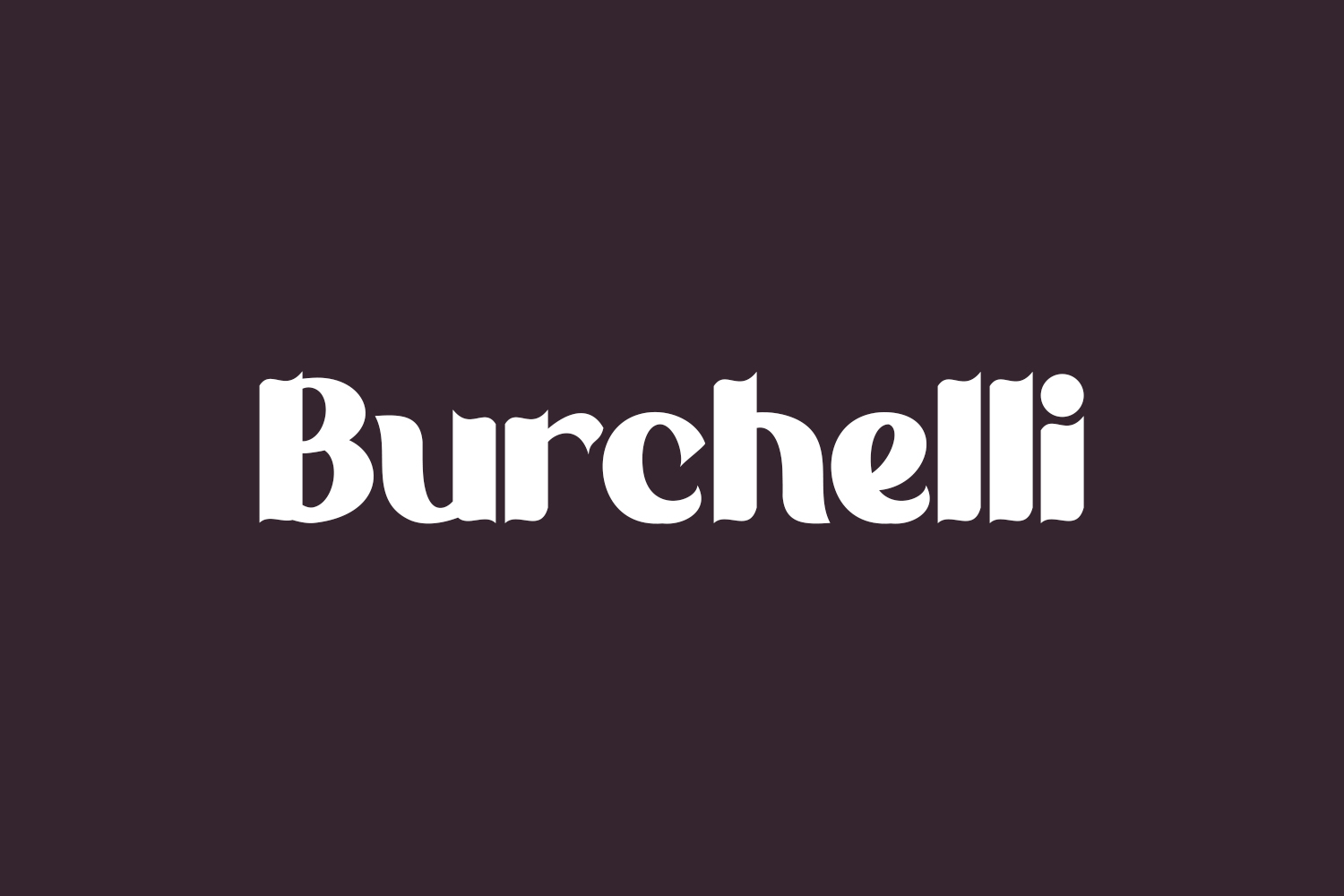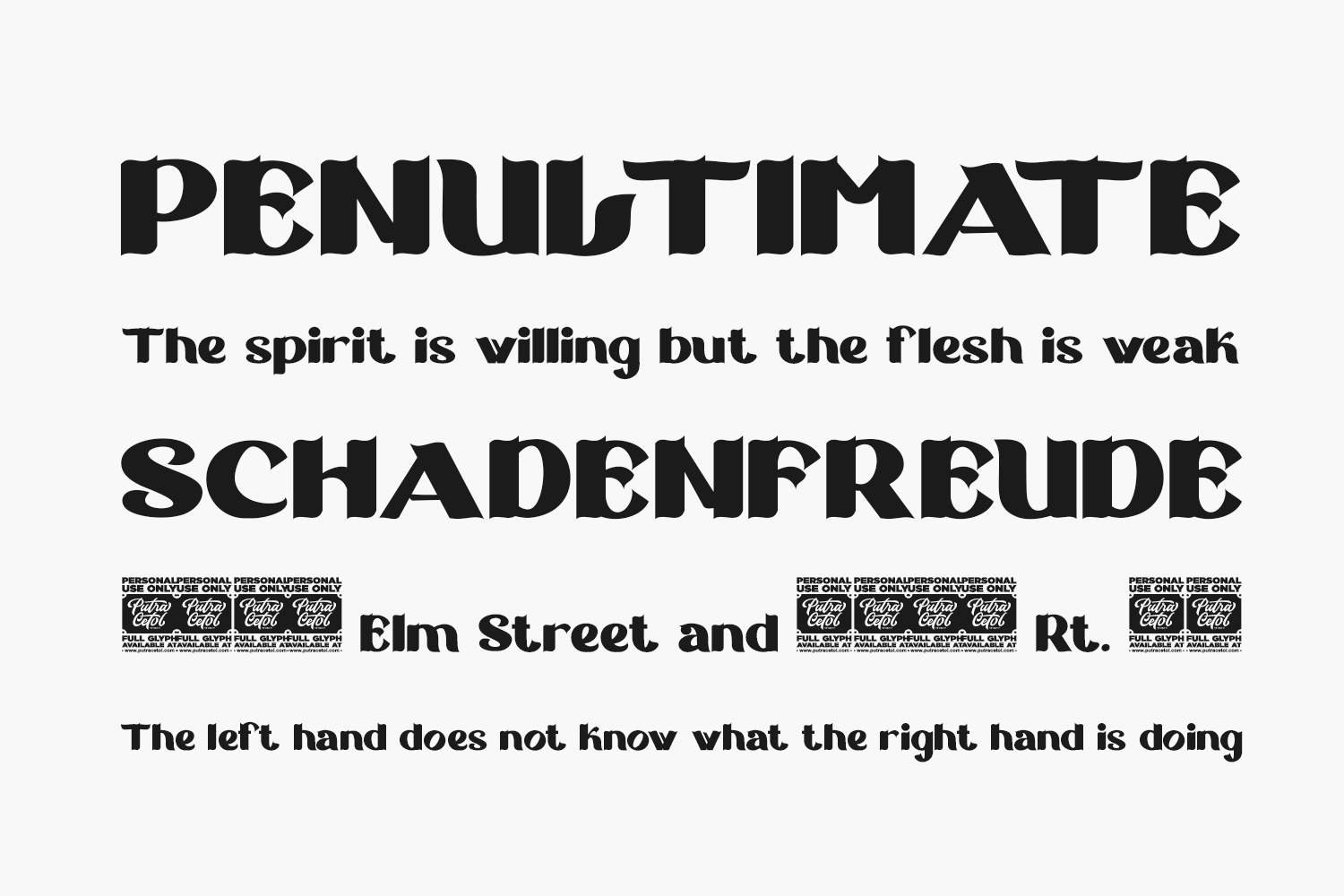
Burchelli Free Font
Introducing Burchelli Free Font – a dynamic bold display sans font designed to infuse your projects with excitement and vibrancy. Inspired by extra bold font styles and display sans, Burchelli offers a fresh alternative to traditional sans serif fonts, adding a unique touch to your designs.
Ideal for professional endeavors, Burchelli brings a sense of uniqueness and classic charm to various themes. From logos and branding to greeting cards, invitations, advertisements, titles, headlines, stickers, packaging, quotes, posters, apparel designs, billboards, and beyond, Burchelli is versatile enough to elevate any creative venture. Download the font for free if you need it for personal use or purchase the full version for commercial use.